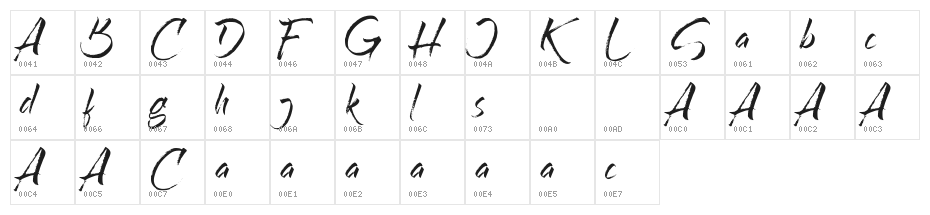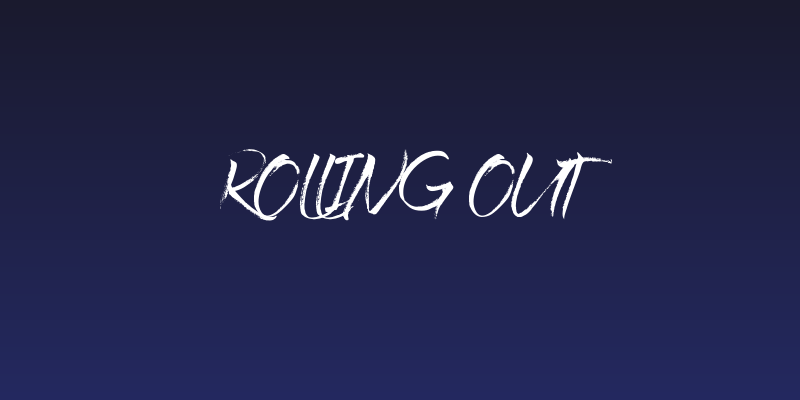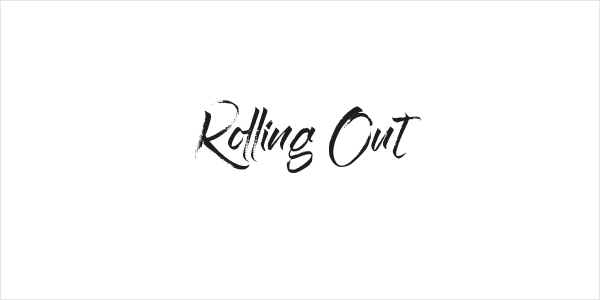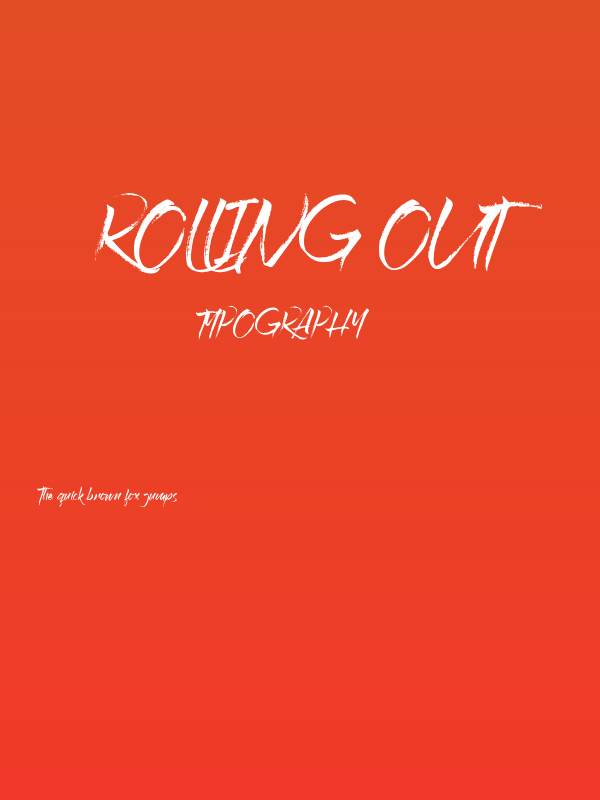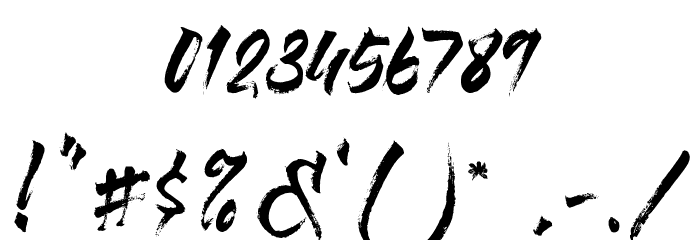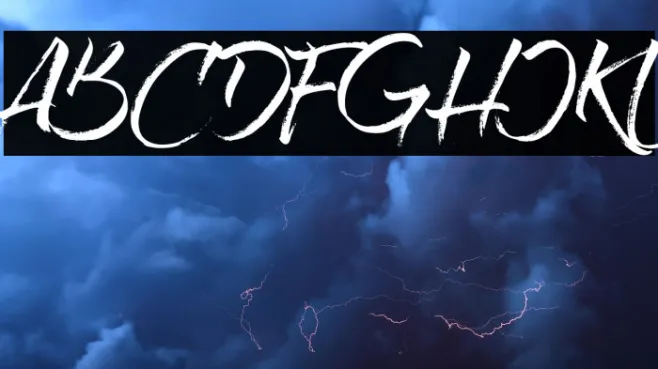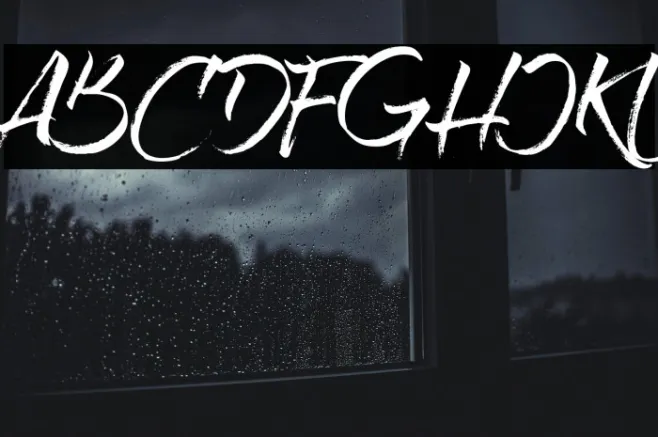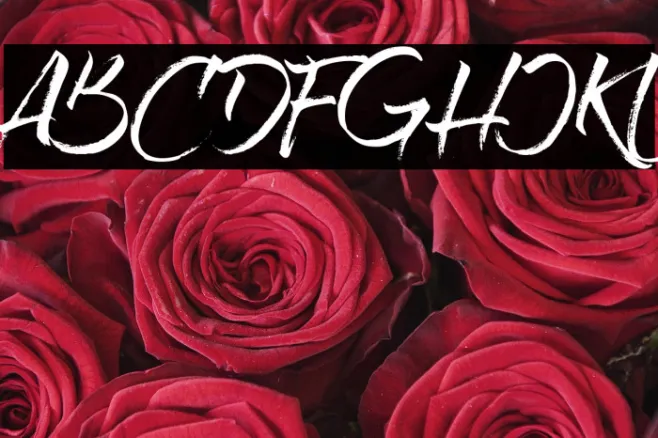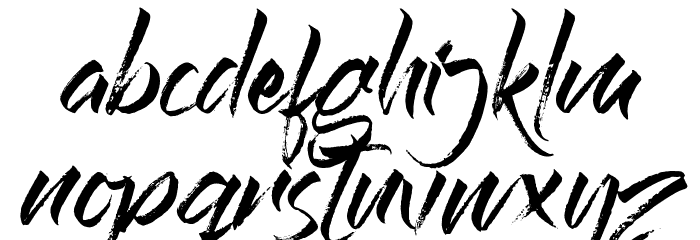
Rolling Out Font
Rolling Out Description
This expressive and dynamic font features a brush script style that exudes energy and movement. The strokes are bold and fluid, with a hand-painted appearance that gives it a personal and artistic touch. The uppercase letters are slightly more structured, while the lowercase letters maintain a free-flowing and spontaneous feel. Numbers and special characters are consistent with the overall style, adding to its versatility. The font's rough edges and varying stroke widths contribute to its organic and authentic look, making it ideal for creative projects that require a touch of personality.
| Proposed Projects | Ideal for branding, posters, invitations, and any creative project that requires a personal touch. |